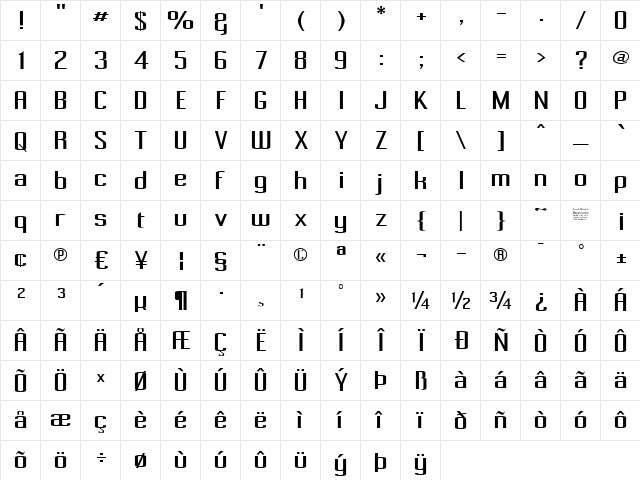
Pecot Regular
Design Context for Pecot Typeface
Pecot takes a measured approach to typography — its balanced proportions and neutral character make it a reliable workhorse for both digital and print work.